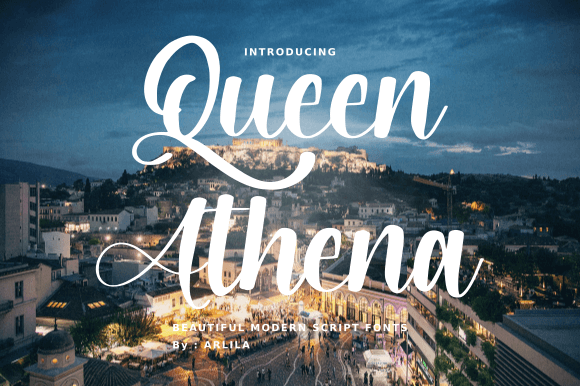
Introducing the Queen Athena Font, a captivating fusion of delicacy, elegance, and fluidity. Its beautifully crafted characters dance across your designs, adding a touch of vintage charm and timeless beauty. As a script font, Queen Athena embodies the grace of handwritten artistry, evoking a sense of nostalgia and authenticity. Its well-balanced structure ensures harmony and visual appeal, making it a versatile choice for a diverse range of creative projects.
Unleash your imagination and explore the endless possibilities that await with the Queen Athena Font. From vintage-inspired logos and branding to eye-catching social media graphics, this font adds a touch of sophistication and allure to your visual creations. Let your designs speak volumes with the timeless elegance of Queen Athena, leaving a lasting impression on your audience.
Immerse yourself in a world of creative expression with the Queen Athena Font. Whether you're a seasoned designer or just starting your journey into the world of typography, this font empowers you to craft designs that exude charisma and charm. Its versatility extends beyond the digital realm, making it a perfect choice for physical applications such as signage, packaging, and merchandise.
Step into the realm of creative brilliance and let the Queen Athena Font guide you. Its delicate strokes and flowing lines add a touch of artistry to your designs, transforming them into captivating masterpieces. Experience the joy of creating designs that resonate with your audience, leaving a lasting mark on their minds.